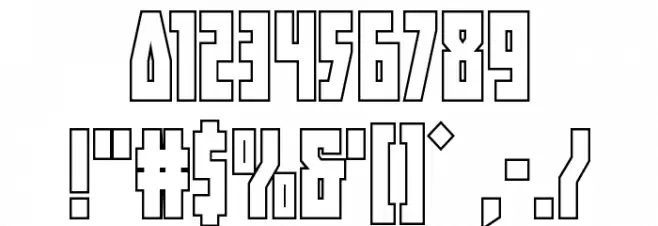
Her Champions Outline Font
Her Champions Outline Description
This font features a bold, geometric outline style with sharp, angular edges and a strong presence. The uppercase and lowercase letters maintain a consistent height, creating a uniform and cohesive look. The numerals and special characters follow the same design principles, ensuring a seamless integration across different text elements. The font's outline design gives it a modern and edgy appearance, making it ideal for projects that require a standout, impactful typeface. Its structured form and clear lines make it highly legible, even at smaller sizes.
A bold, geometric outline font with sharp, angular edges and a modern look from Regular fonts.
- Font: Her Champions Outline
- Proposed Projects: Ideal for logos, posters, headlines, and any design requiring a strong, modern typeface.